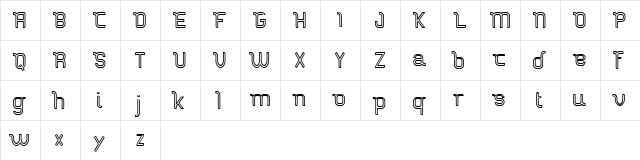
Stucker inline FREE Regular
| Foundry | inspiratype |
| Designer | inspiratype |
Design Context for Stucker inline FREE Typeface
Stucker inline FREE is built around its visual character rather than neutral utility — its distinctive forms are designed to make an impression at display sizes.